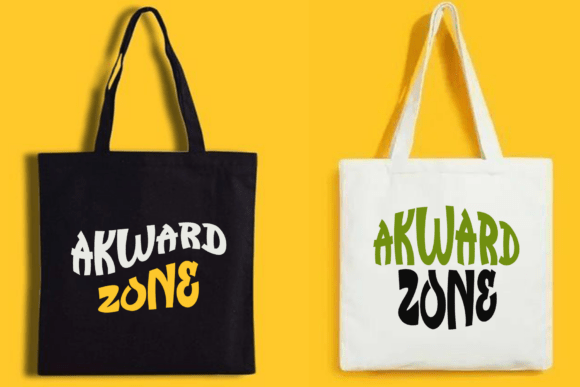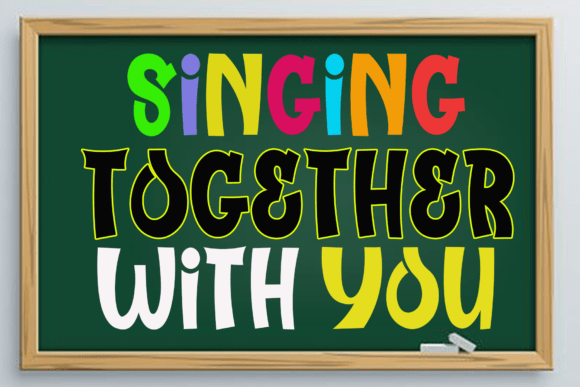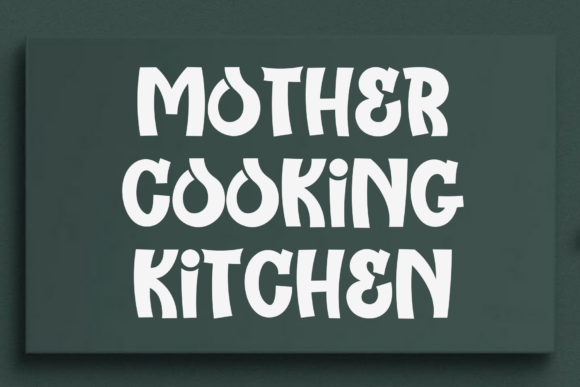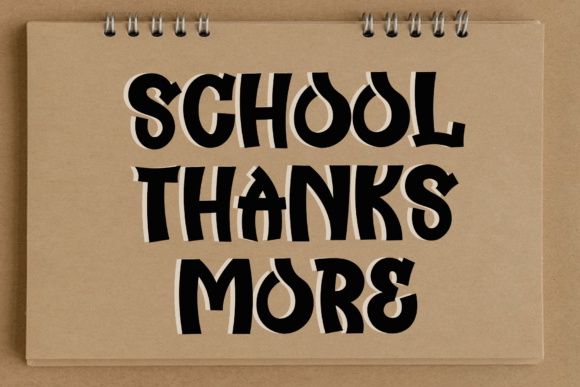
Introducing Graffitis Font: Unleash Joy and Energy in Your Designs
Are you tired of using the same old fonts in your designs? Look no further than Graffitis Font, a bold, fun, and vibrant display font that’s bursting with cheerful personality. This exciting font is perfect for designers and crafters who want to add a touch of playfulness and energy to their work.
The Characteristics of Graffitis Font
Graffitis Font is a unique and eye-catching font that’s characterized by its chunky letterforms, playful curves, and quirky geometric cuts. These distinctive features make it an ideal choice for designs that require a bold and attention-grabbing look. Whether you’re working on a children’s book, game title, party poster, or colorful branding project, Graffitis Font is sure to make your design stand out.
Graffitis Font is a versatile font that can be used in a wide range of design projects. Its fun and lively personality makes it perfect for:
- Children’s books: Add a touch of whimsy and fun to your children’s book with Graffitis Font.
- Game titles: Make your game title stand out with Graffitis Font’s bold and playful design.
- Party posters: Create eye-catching party posters that are sure to grab attention with Graffitis Font.
- Colorful branding: Use Graffitis Font to add a pop of color and energy to your brand’s design.
The Power of Gradient Styling
One of the standout features of Graffitis Font is its gradient styling. This feature enhances the font’s lively feel, making it perfect for designs that want to stand out with joy and energy. With Graffitis Font, you can create designs that are not only visually appealing but also emotive and engaging.
Why Designers and Crafters Love Graffitis Font
Designers and crafters love Graffitis Font for its unique and playful design. Here are just a few reasons why:
- Easy to read: Despite its bold and chunky design, Graffitis Font is easy to read, making it perfect for designs that require a clear and concise message.
- Highly versatile: Graffitis Font can be used in a wide range of design projects, from children’s books to game titles and party posters.
- Customizable: With its gradient styling feature, you can customize Graffitis Font to fit your design needs and create a unique look that’s all your own.
Tips for Using Graffitis Font in Your Designs
Here are a few tips for using Graffitis Font in your designs:
- Use it sparingly: Graffitis Font is a bold font, so use it sparingly to avoid overwhelming your design.
- Experiment with colors: Graffitis Font looks great in a variety of colors, so don’t be afraid to experiment and find the perfect color scheme for your design.
- Pair it with other fonts: Graffitis Font can be paired with other fonts to create a unique and visually appealing design.
Graffitis Font is a bold, fun, and vibrant display font that’s perfect for designers and crafters who want to add a touch of playfulness and energy to their work. With its chunky letterforms, playful curves, and quirky geometric cuts, Graffitis Font is ideal for a wide range of design projects, from children’s books to game titles and party posters. Its gradient styling feature enhances its lively feel, making it perfect for designs that want to stand out with joy and energy. So why not give Graffitis Font a try and see how it can elevate your designs?